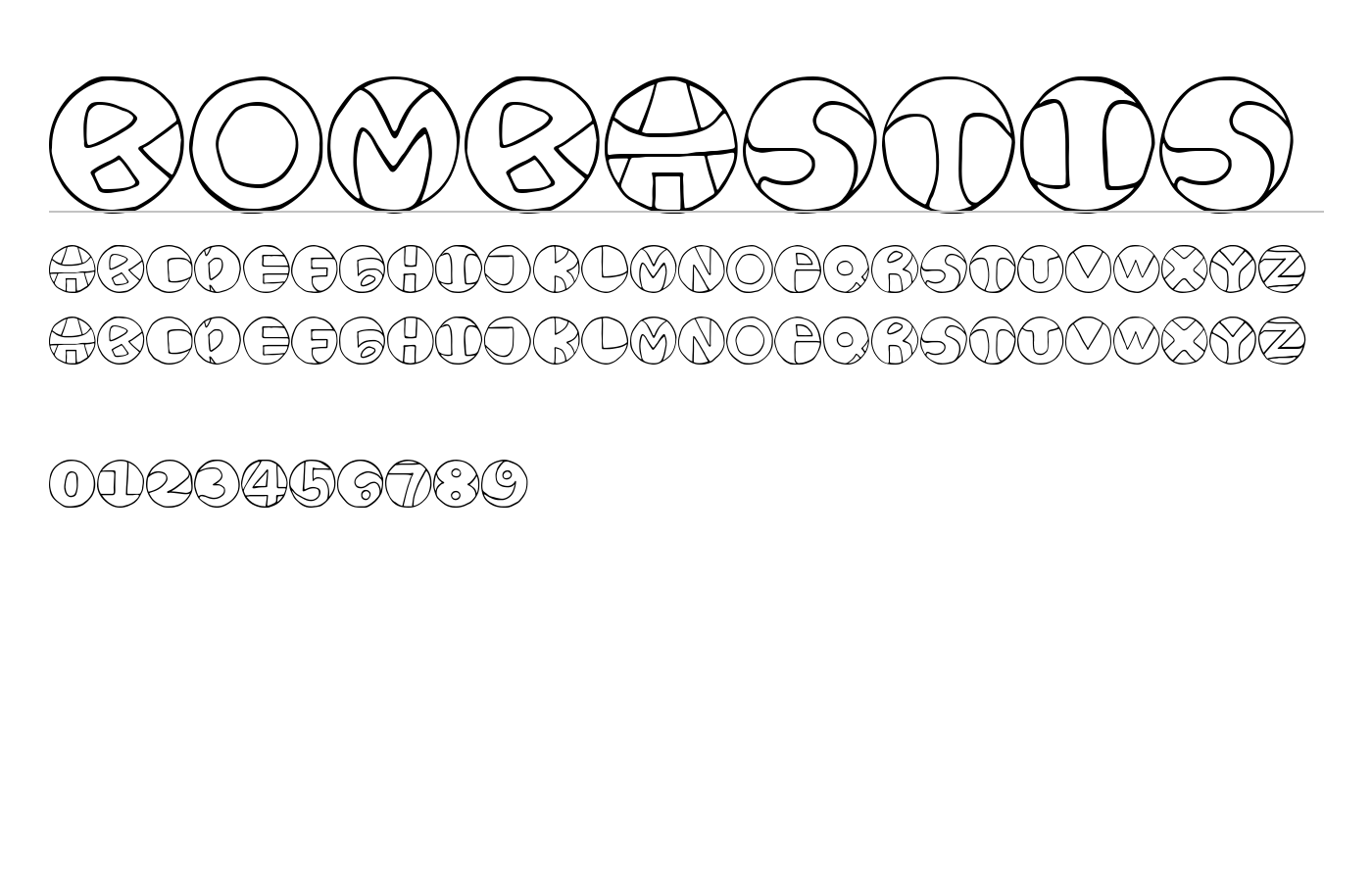
Bombastis is a playful and decorative display font featuring rounded letterforms enclosed within circular outlines, giving it a bold yet friendly personality. Its quirky, hand-drawn style with uneven lines and ample space makes it perfect for eye-catching headlines, children's designs, or any creative project needing a fun and informal vibe. This font’s unique shapes and whimsical look work best where a sense of cheerfulness and approachability is desired.
Bombastis Font
About Bombastis Font
| Font family | Bombastis Font |
| Designer | Oziel89 Studio |